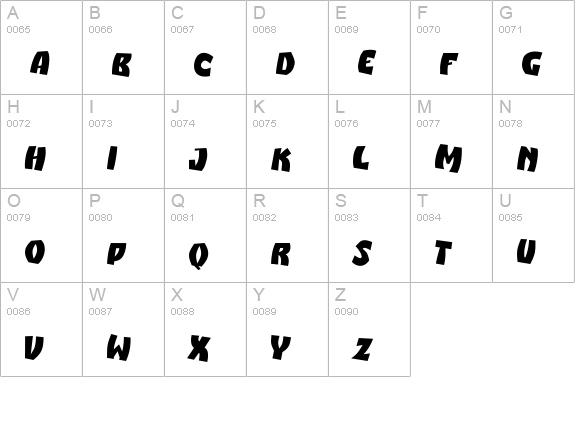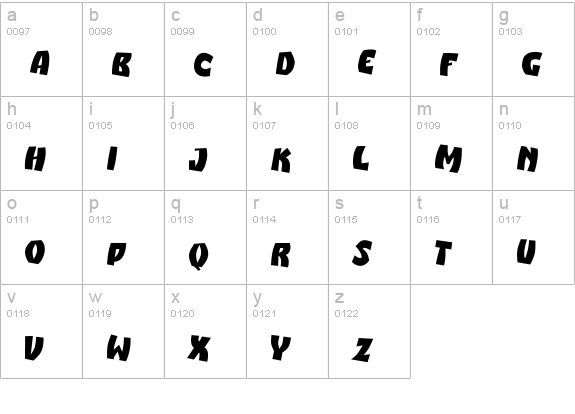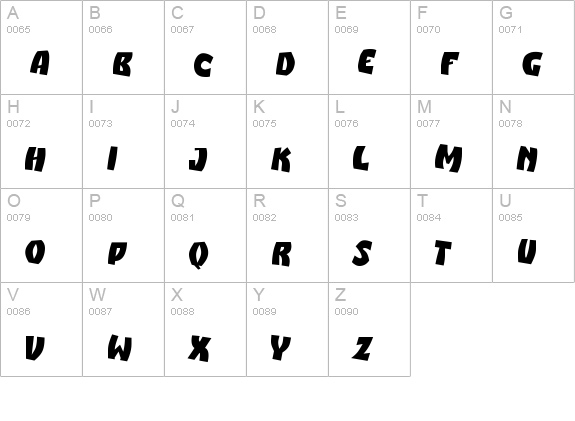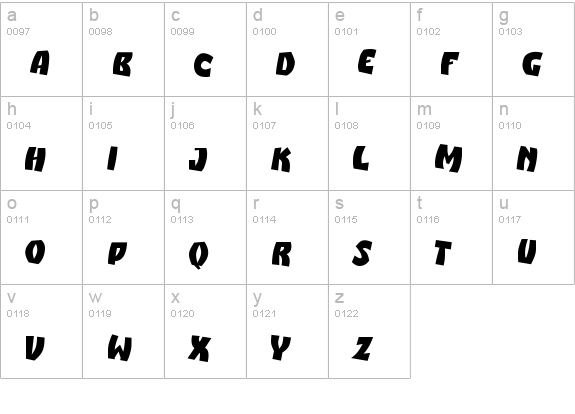
ActionPacked Font Details
ActionPacked font is a bold and dynamic typeface designed to add energy and excitement to your designs. With its strong and edgy appearance, this font is perfect for projects that need a powerful and action-packed look. The sharp angles and thick lines give it a sense of movement and intensity, making it ideal for posters, logos, and other graphic design projects where you want to make a statement. Best of all, ActionPacked font is available for free download at FontsMarket.com. Whether you're a professional designer looking to add some flair to your work or a hobbyist looking to spice up your projects, this font is a great choice. Download it today and start creating eye-catching designs that pack a punch!